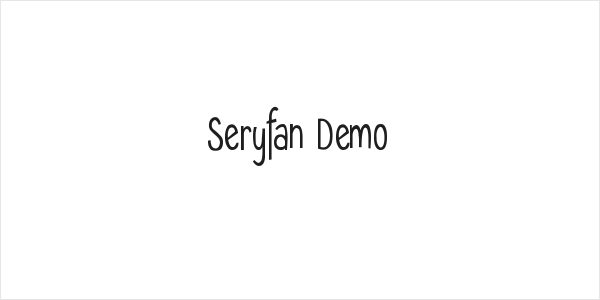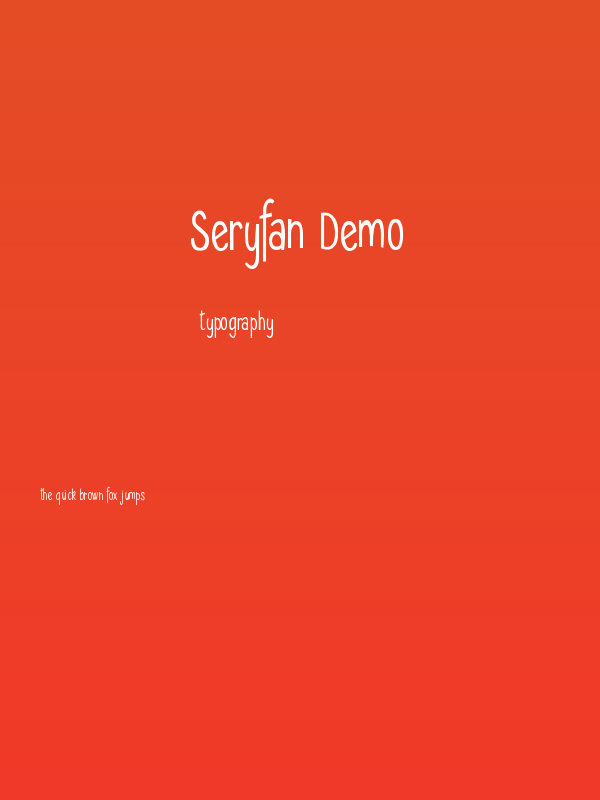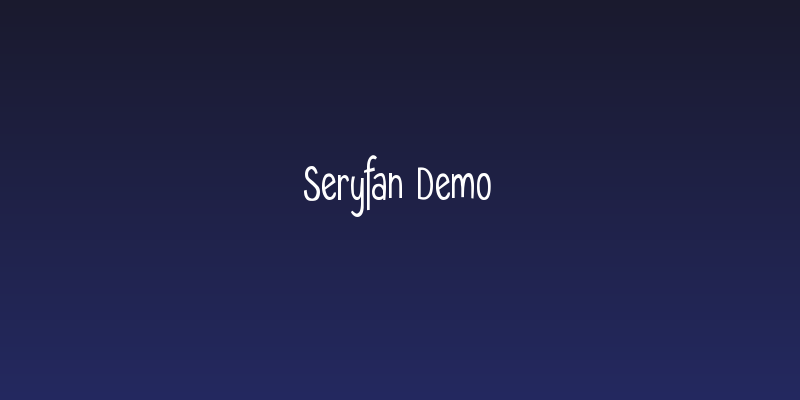
Seryfan Demo Font
Seryfan Demo Description
This font features a playful and whimsical style with a handwritten appearance. The characters are slightly elongated with a consistent stroke width, giving it a casual yet elegant look. The uppercase letters are distinct with a slight slant, while the lowercase letters maintain a uniform height, enhancing readability. The font's overall design is clean, with rounded edges that add a friendly and approachable feel. It lacks any serifs, contributing to its modern and informal aesthetic. The spacing between characters is balanced, ensuring clarity and legibility in various text sizes.
| Proposed Projects | Ideal for children's books, greeting cards, playful branding, and casual invitations. |